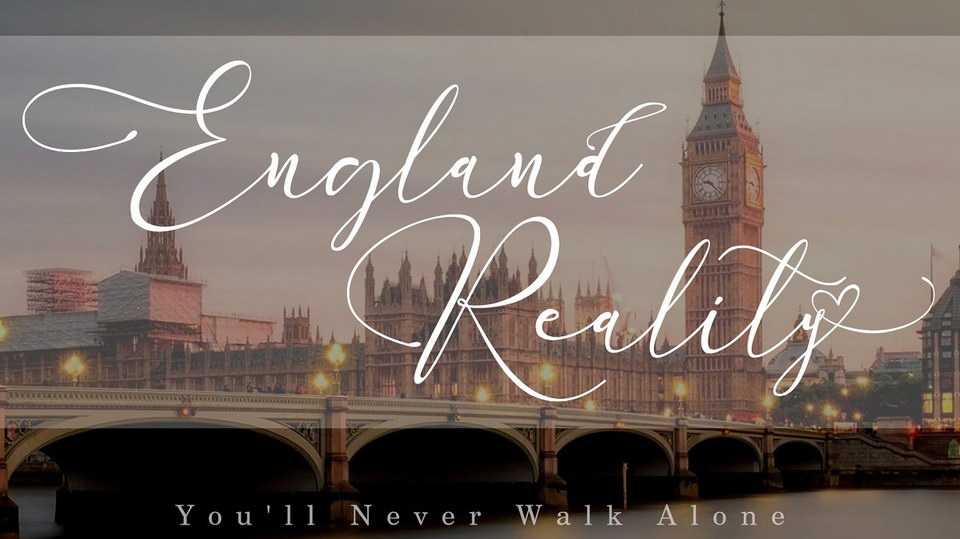
England Reality Script Font › Fontesk – Download Grátis
Download England Reality font, a luxury and stylish handwritten script that features a varying baseline, smooth line, modern and with a depth love.